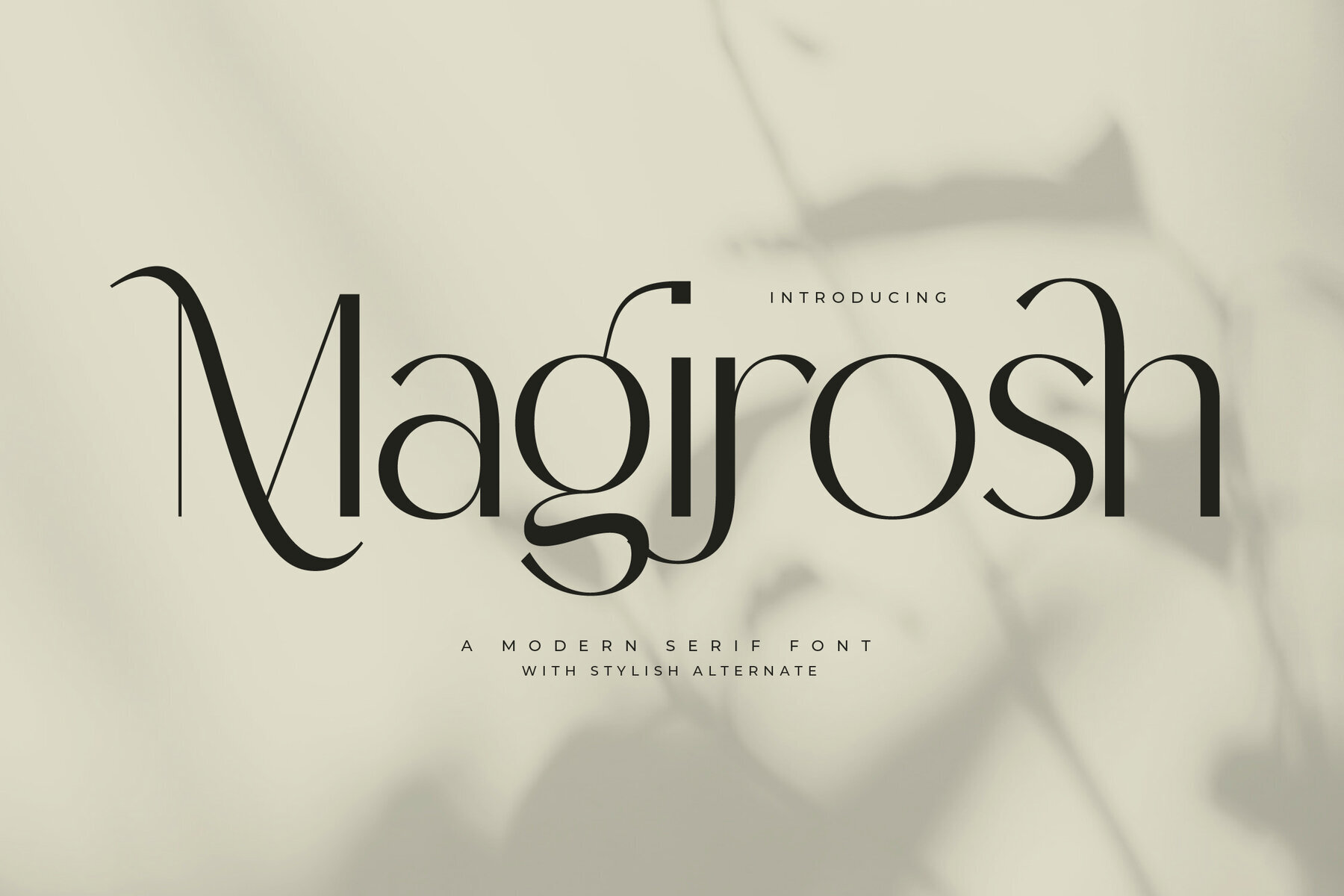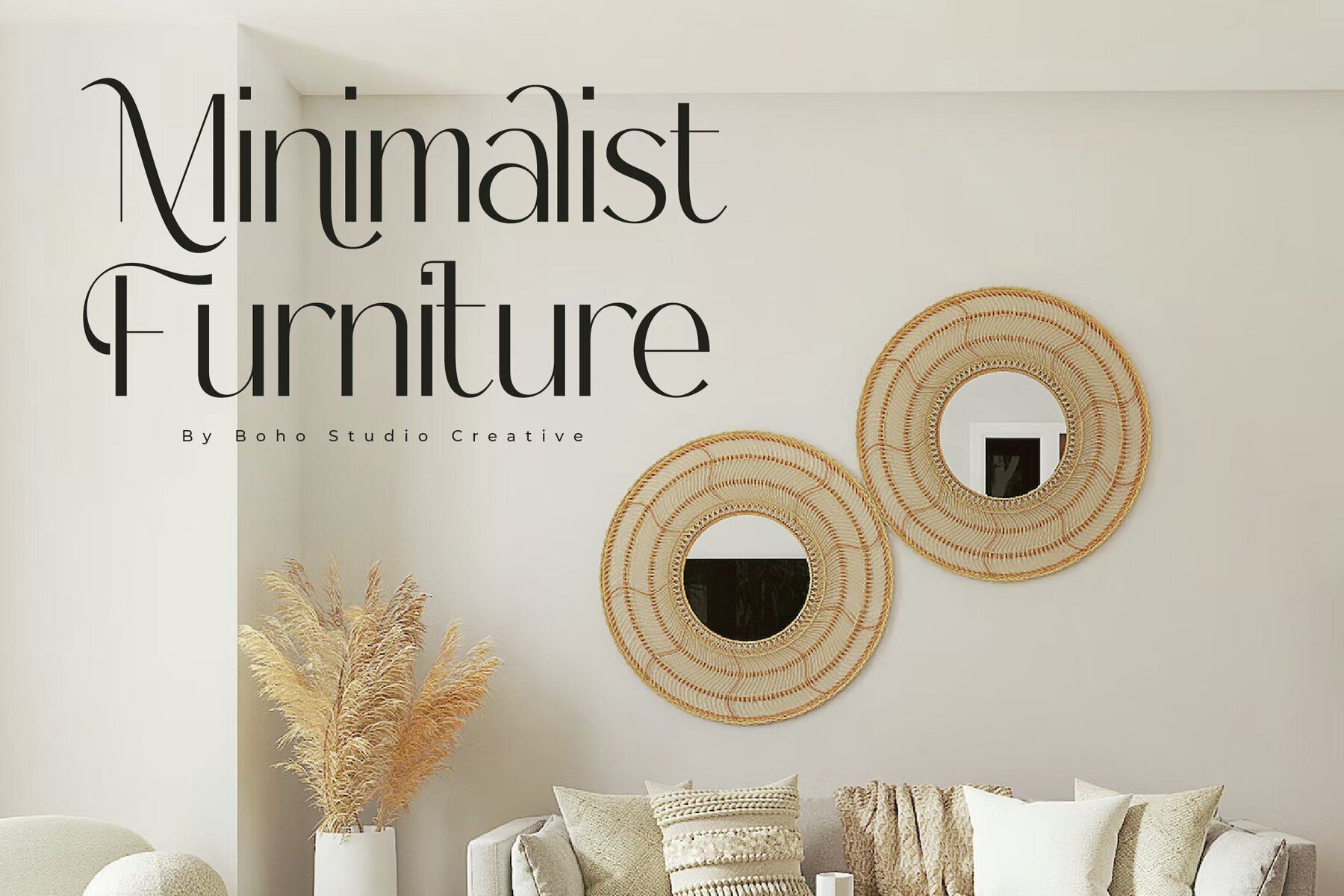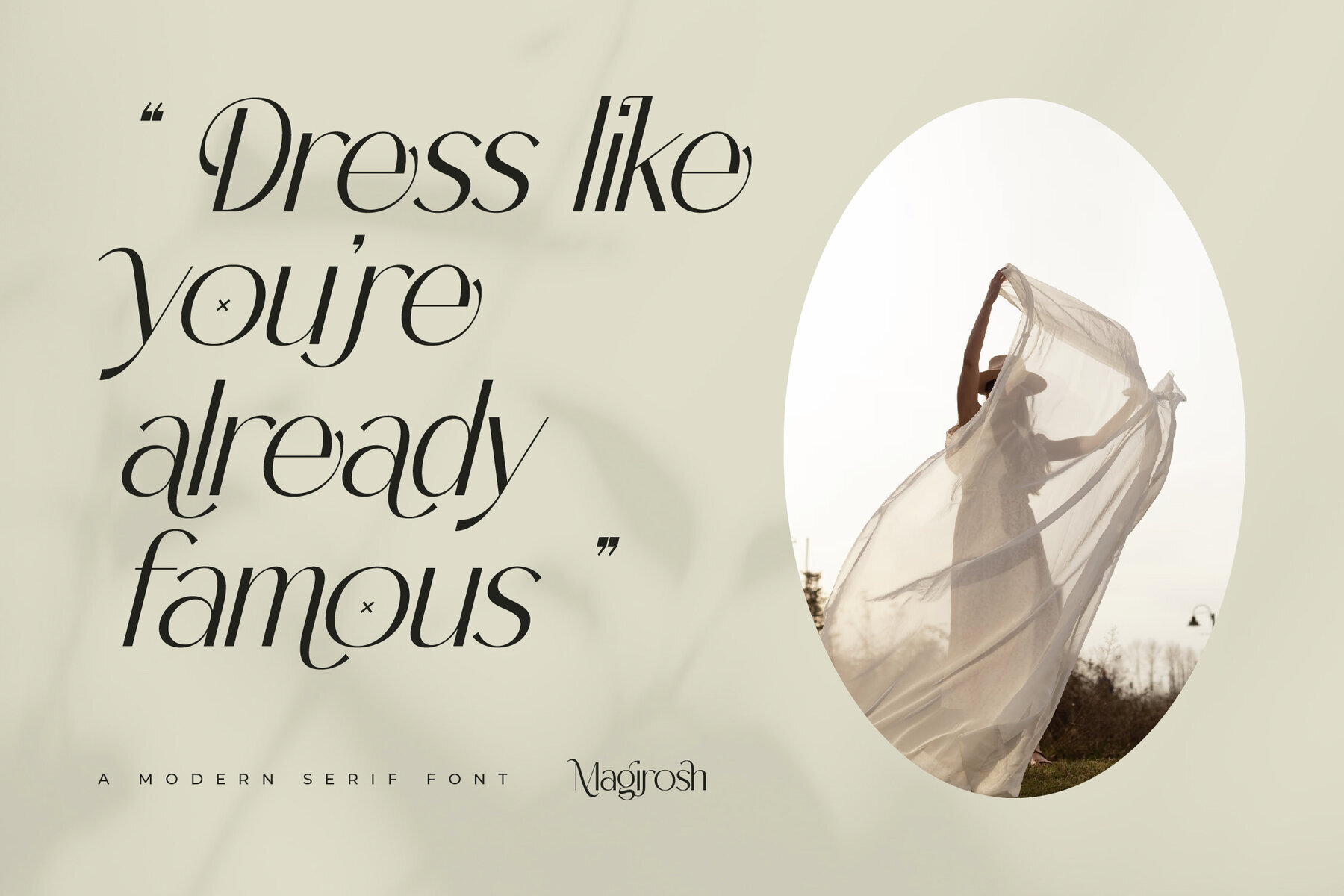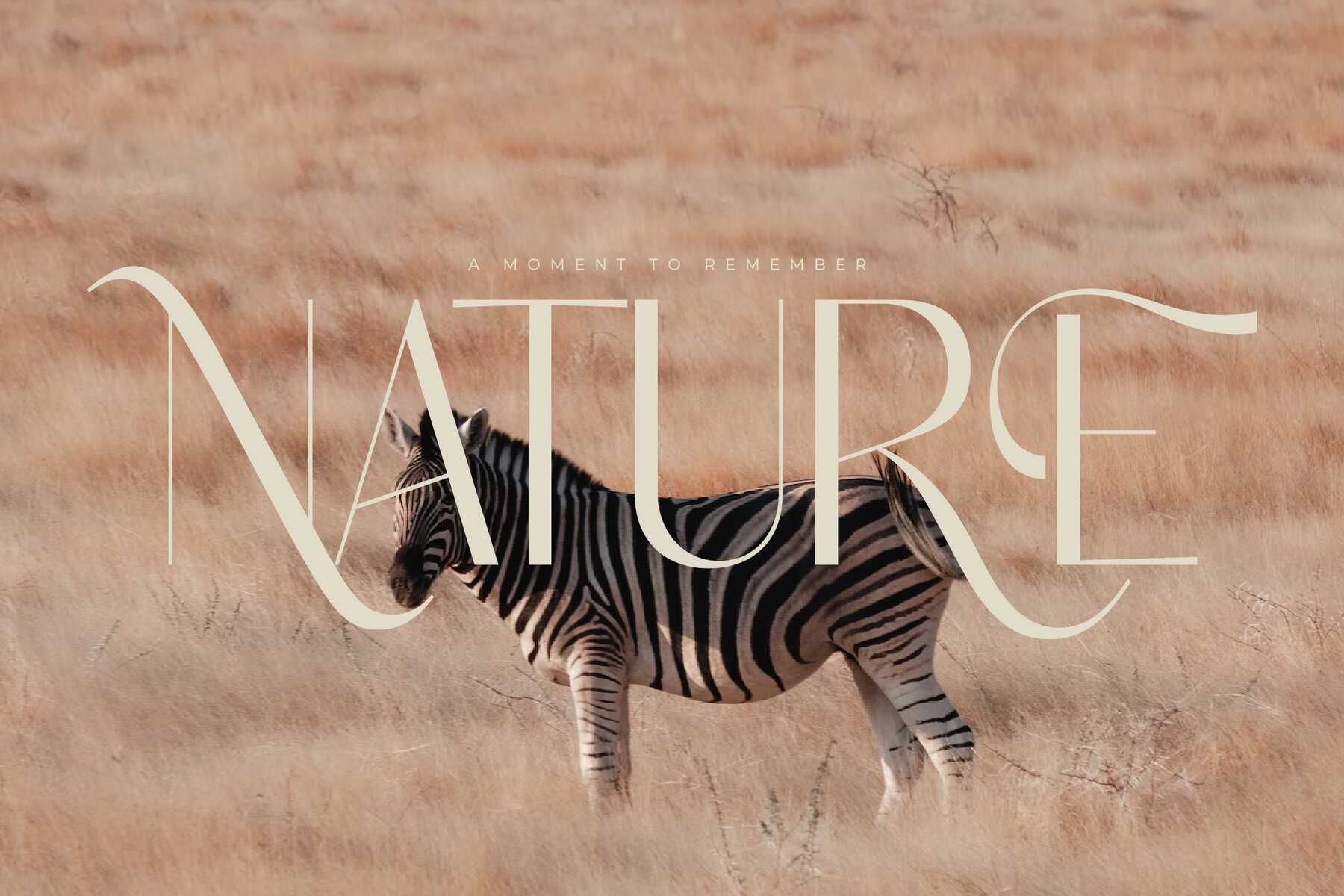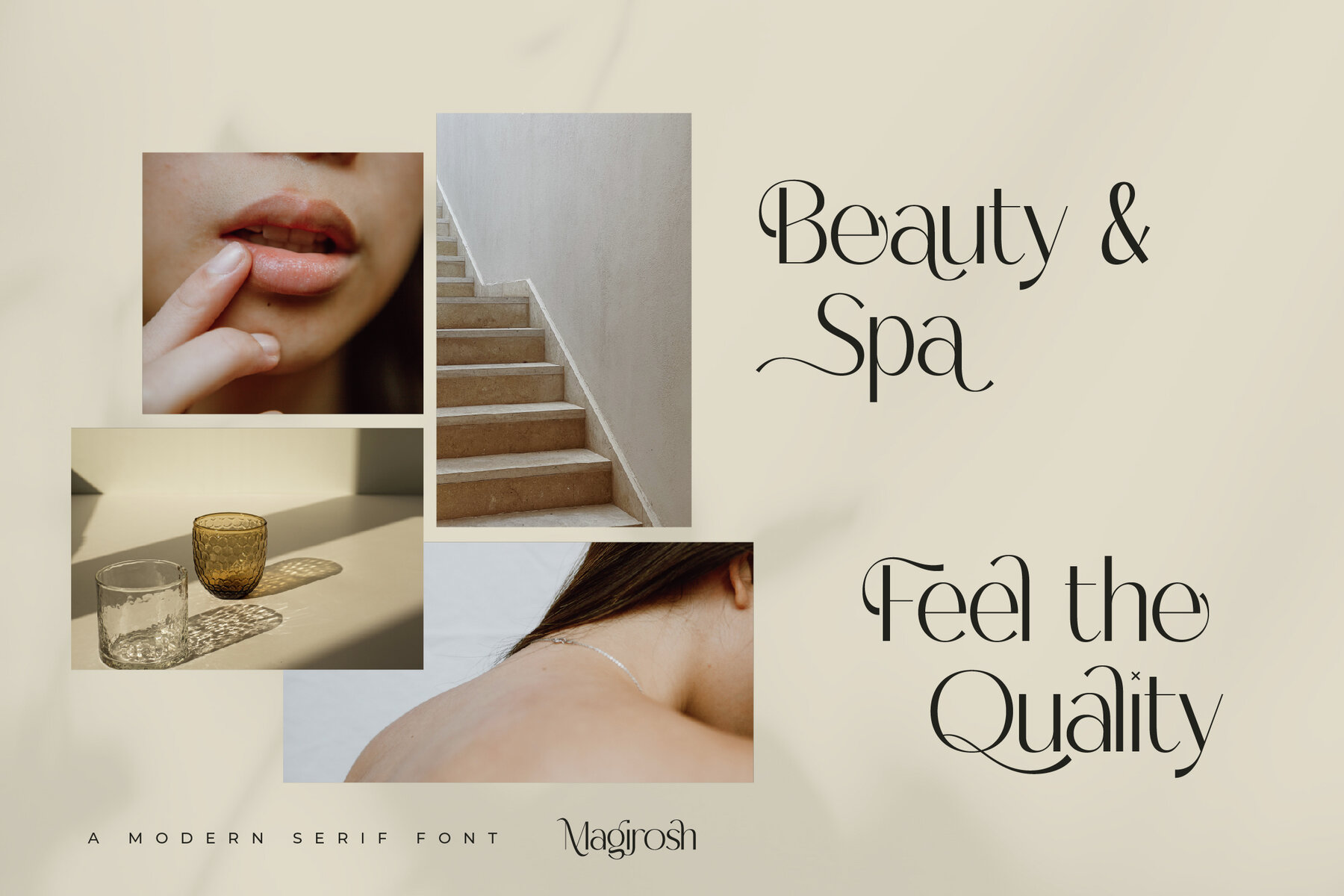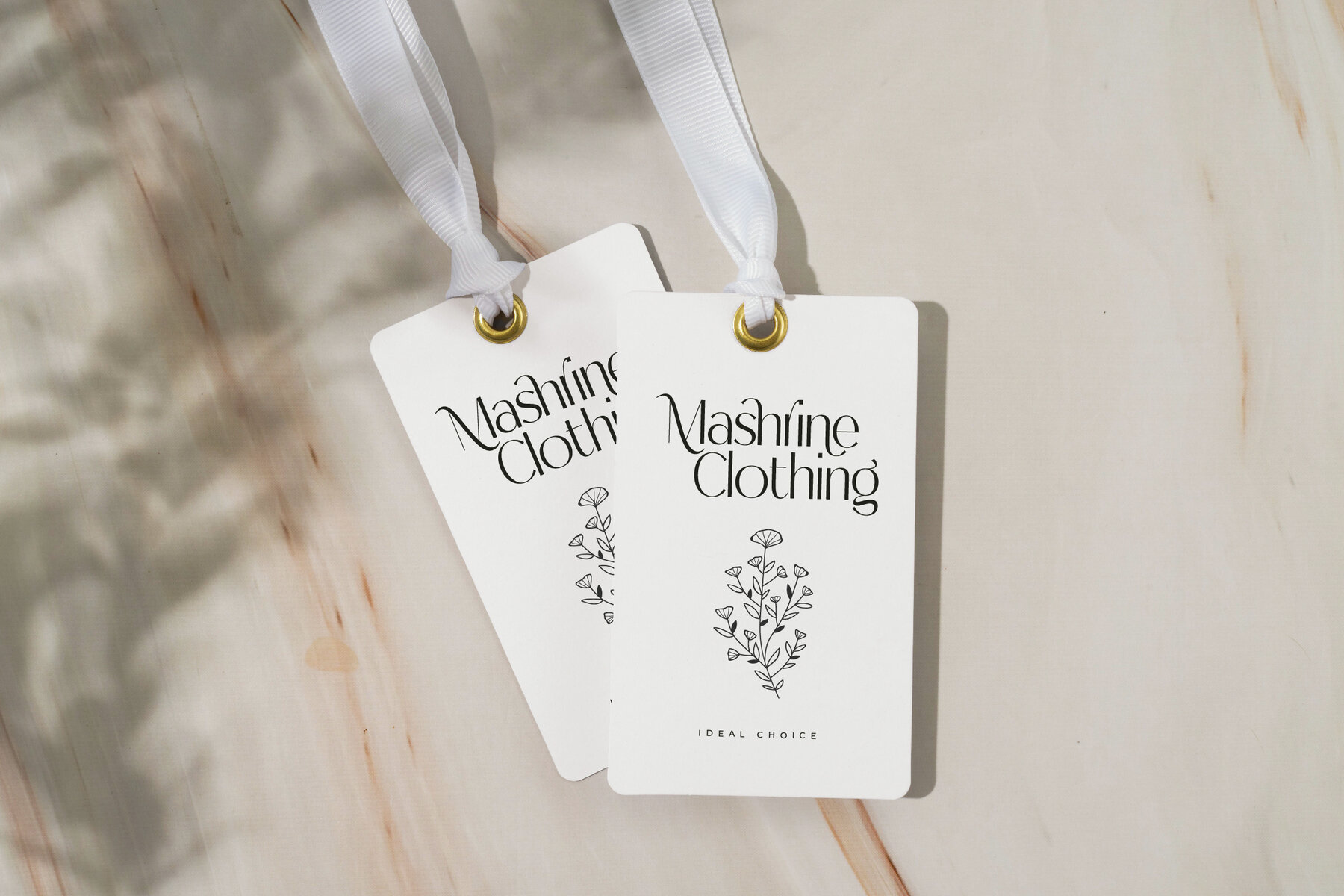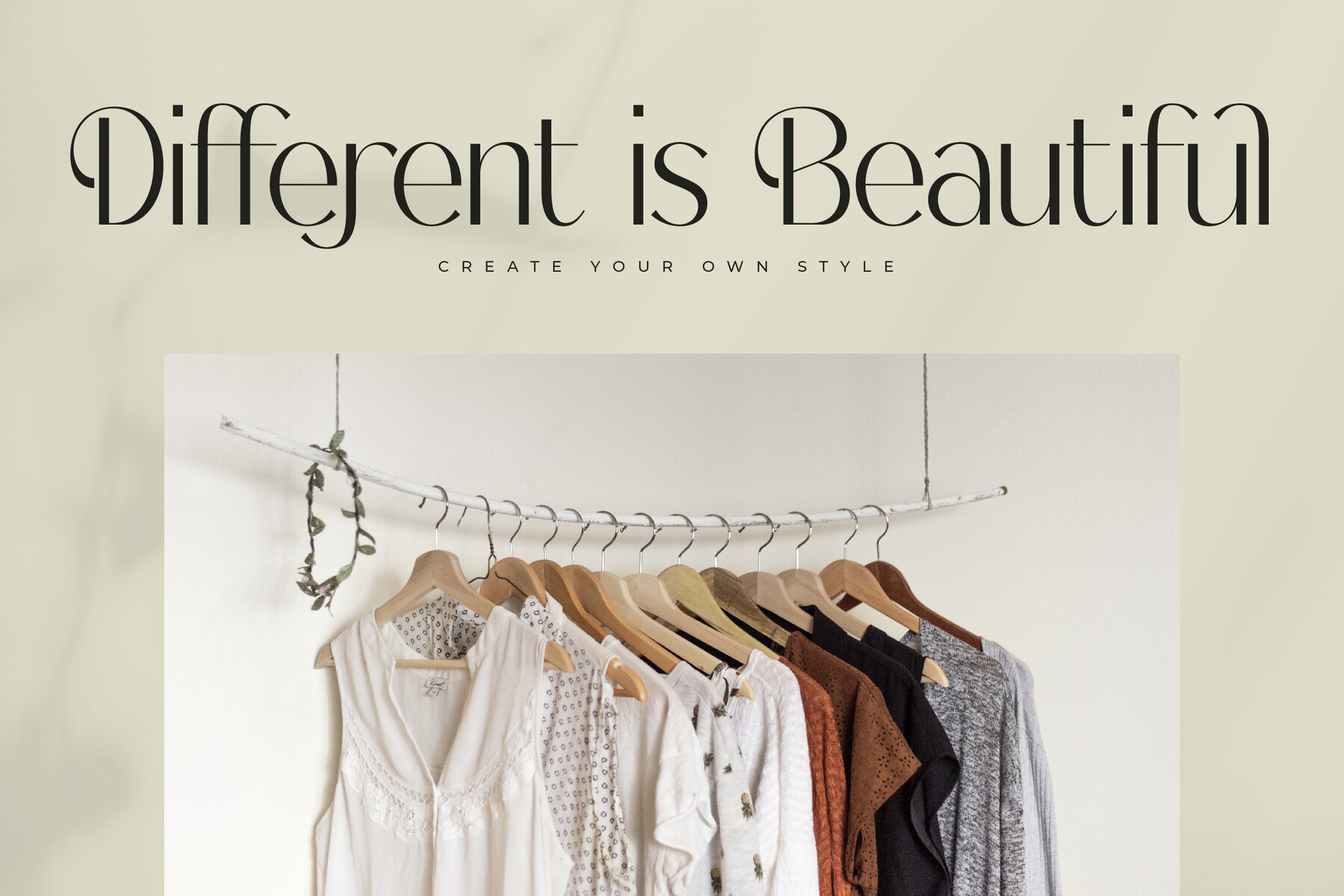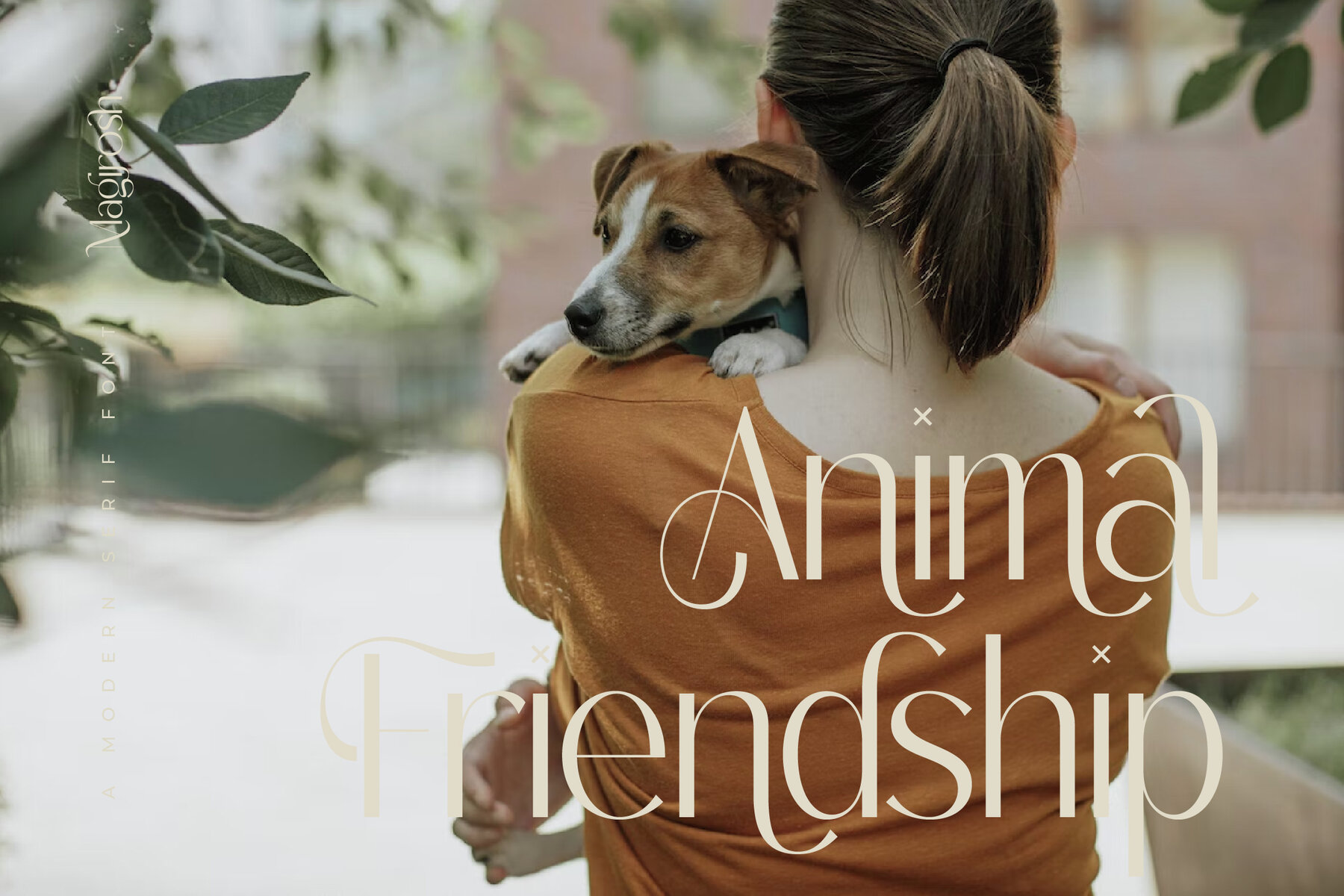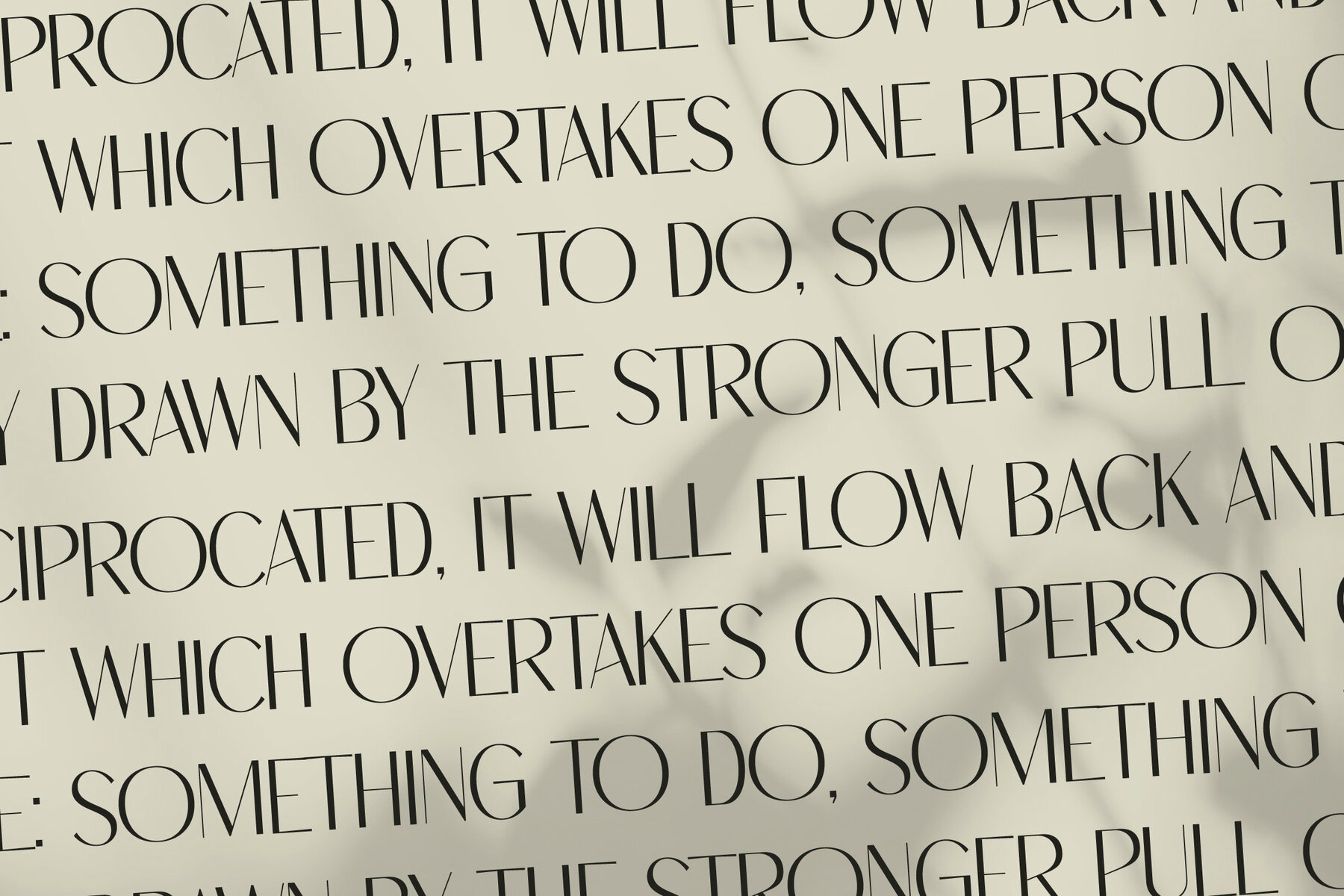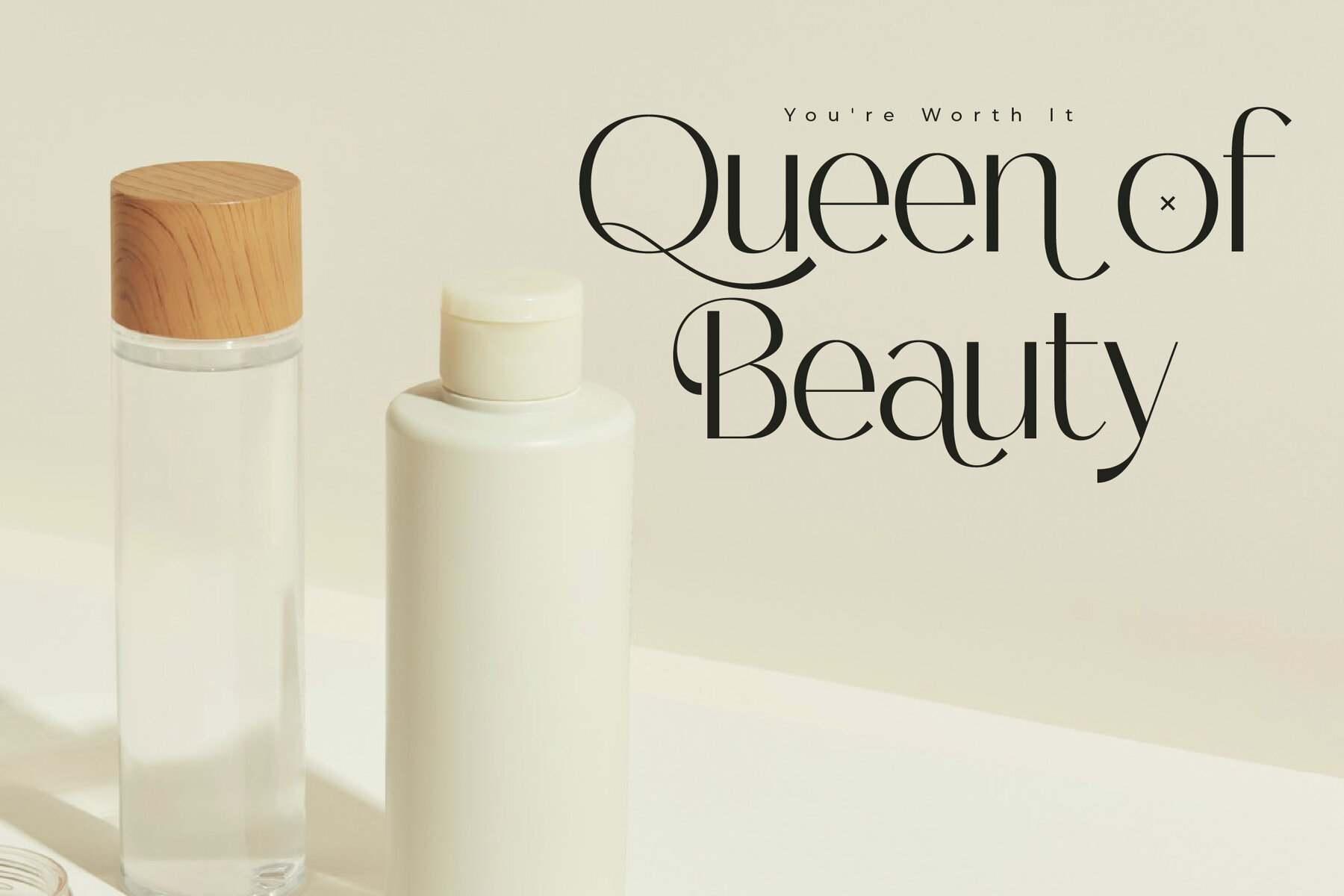
Magirosh Font
Magirosh Regular
Magirosh Italic
Introducing Magirosh Typeface, a sophisticated blend of modern and classic serif styles designed by Storytype Studio. This unique typeface embodies elegance and luxury, making it perfect for crafting distinctive logos, captivating book or movie titles, and stylish fashion and magazine designs. Its versatile style extends to clothing labels, signature quotes, and more.Magirosh Typeface